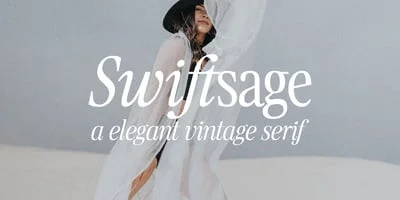
Swift Sage Font
Swift Sage Font is perfect for corporate presentations, professional websites, business reports, academic publications, technology branding, consulting firm logos, financial documents, and educational materials. This versatile typeface excels in professional environments, corporate communications, and any project requiring clean readability combined with intelligent sophistication that builds trust and credibility.
What makes Swift Sage Font exciting is its perfect fusion of modern efficiency and timeless wisdom that communicates both speed and reliability in professional settings. The font features streamlined letterforms with thoughtful proportions that ensure excellent readability while conveying intelligence and expertise, making it ideal for businesses seeking to establish authority and trustworthiness. Its balanced design creates seamless reading experiences across digital and print applications.
Swift Sage Font family includes multiple weights and styles: Regular, Bold, Light, Medium, Italic variations, and condensed versions for space-efficient layouts. Each family member maintains the professional character while offering comprehensive typography solutions for complex document hierarchies, from detailed body text to impactful headlines that command professional attention.
Whether you're designing corporate identity systems or creating professional documentation, Swift Sage Font provides the perfect typography solution for business communication needs. This font transforms ordinary text into authoritative visual content that communicates competence and reliability. Business professionals and corporate designers choose this typeface for its ability to convey expertise and trustworthiness through carefully balanced letterforms that enhance professional credibility.